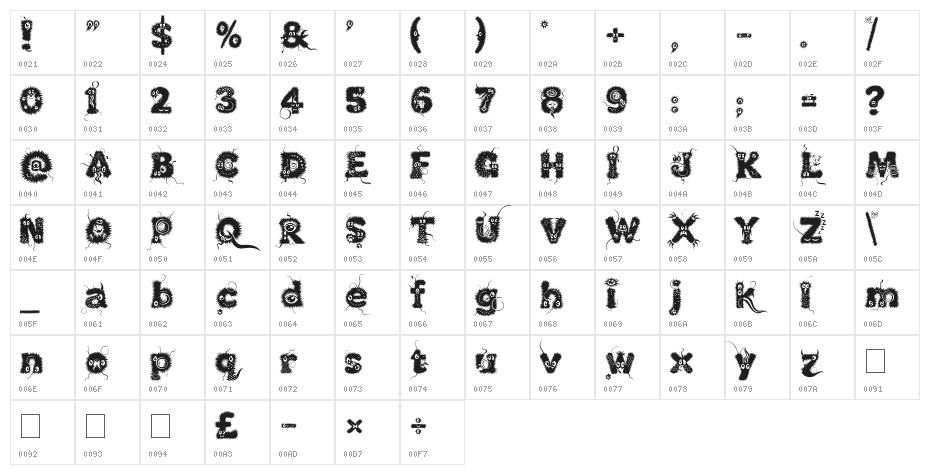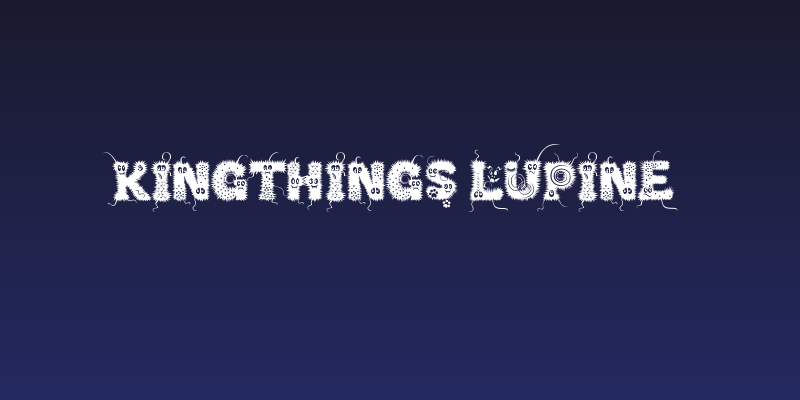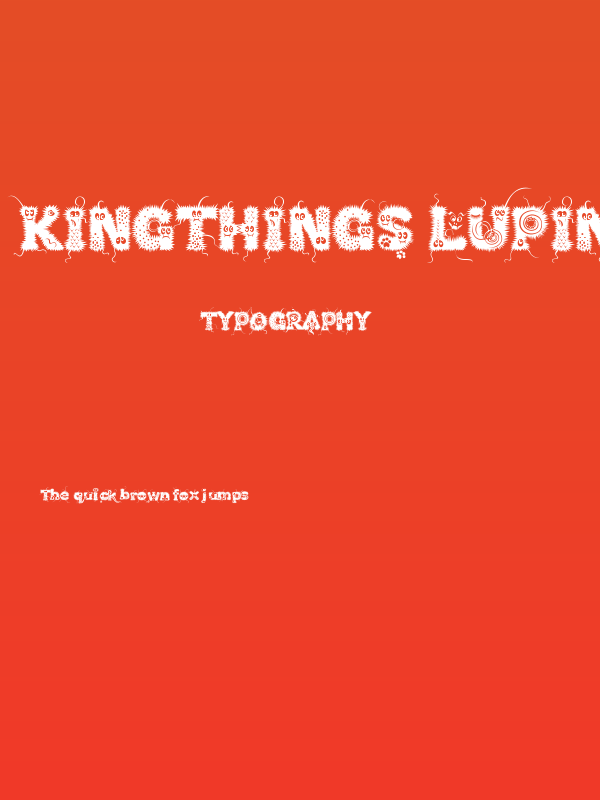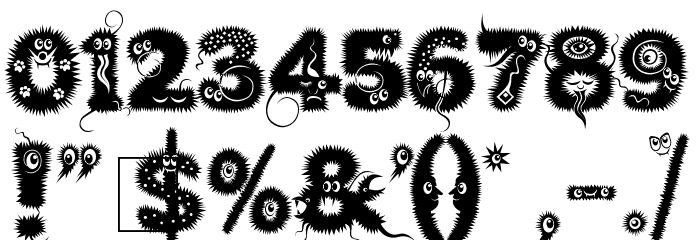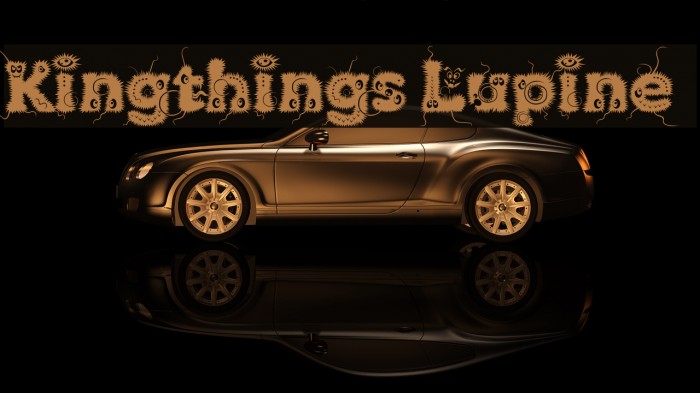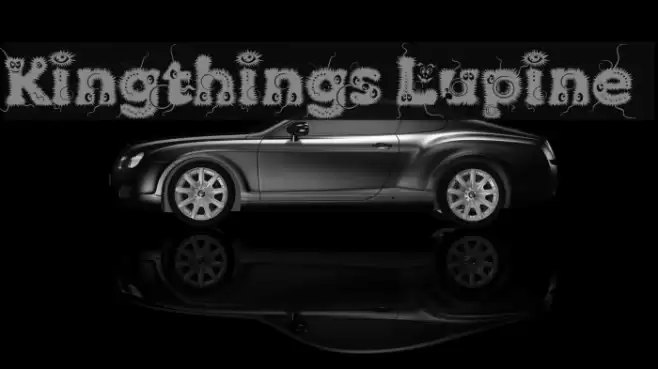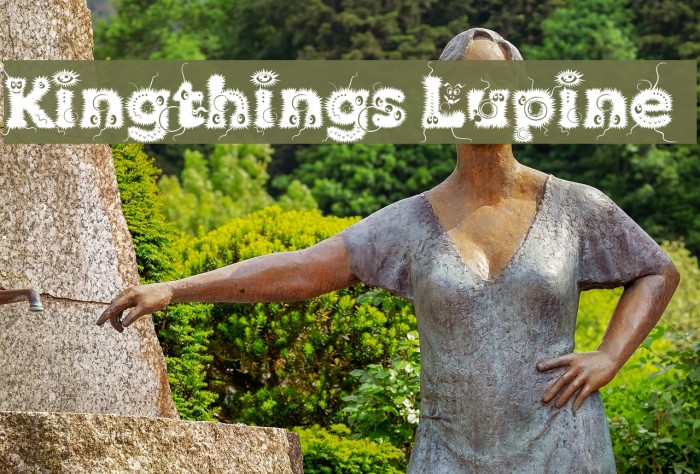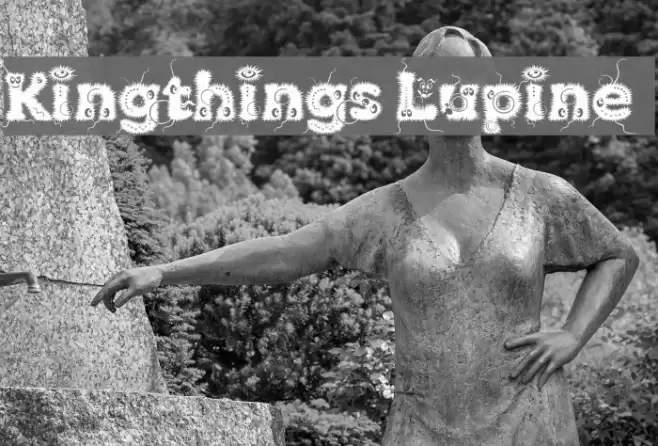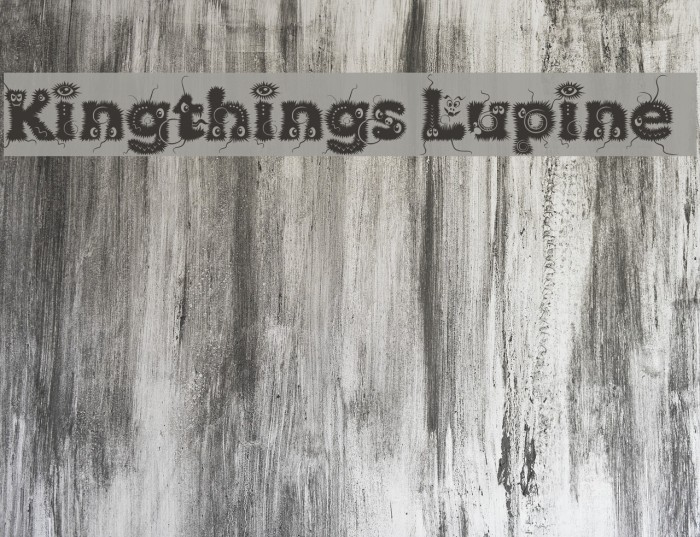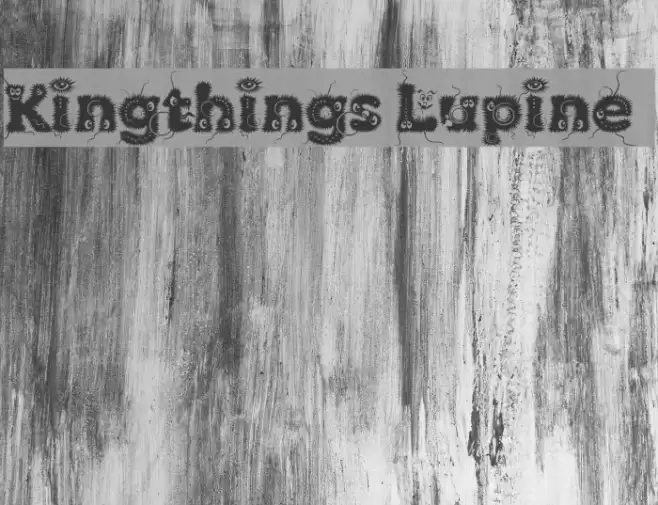
Kingthings Lupine Font
Kingthings Lupine Description
This font is a whimsical and playful design, characterized by its unique and quirky appearance. Each character is adorned with fuzzy, spiky textures and playful eyes, giving it a lively and animated feel. The letters are bold and have a decorative style, making them stand out with a sense of fun and creativity. The font includes both uppercase and lowercase letters, numbers, and a variety of special characters, all maintaining the same energetic and imaginative design. It's perfect for projects that require a touch of humor and personality.
| Proposed Projects | Ideal for children's books, playful posters, Halloween-themed designs, and creative branding. |